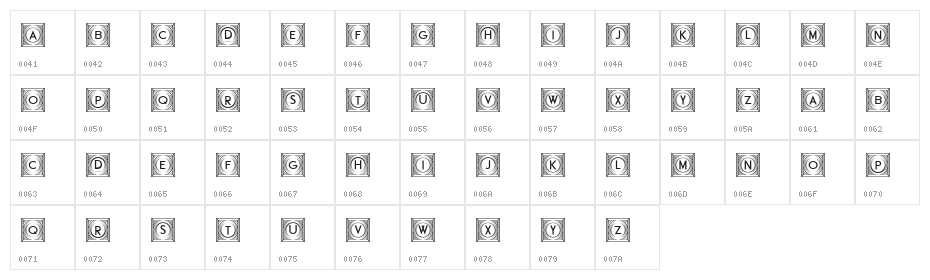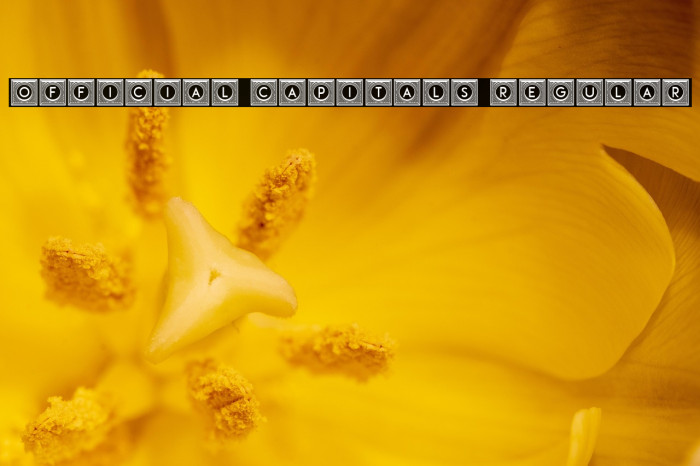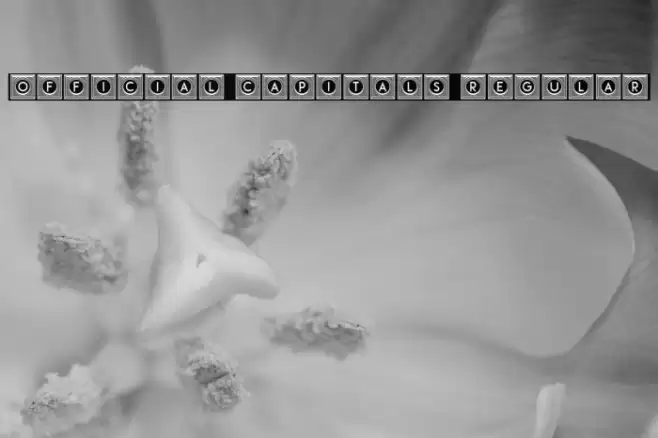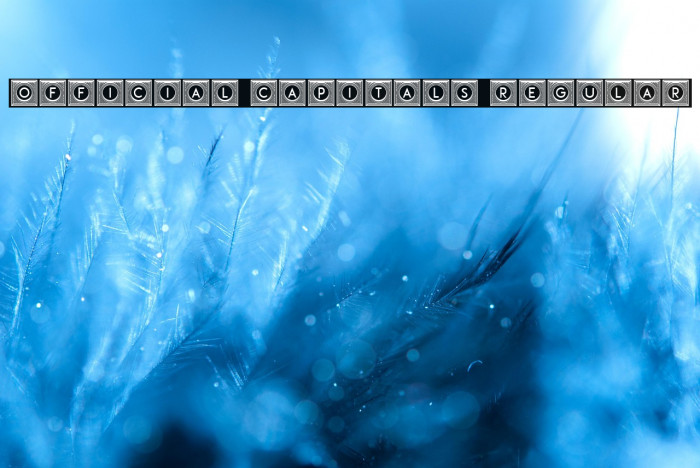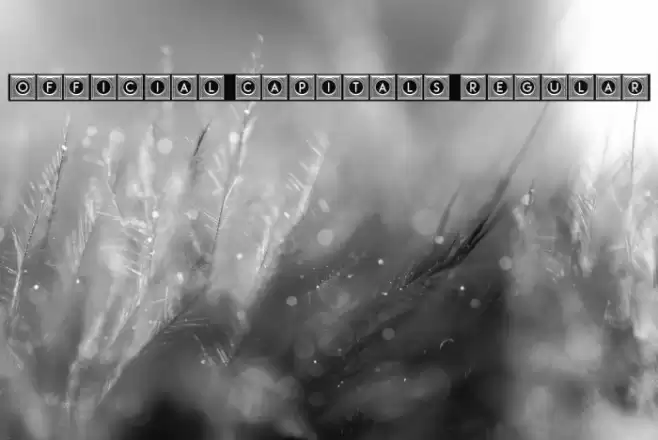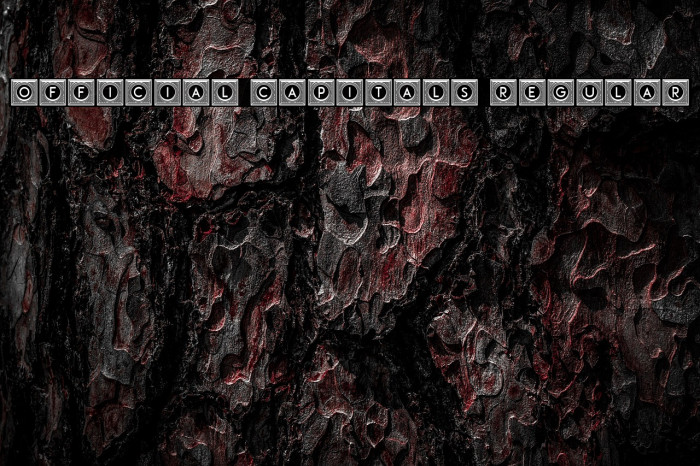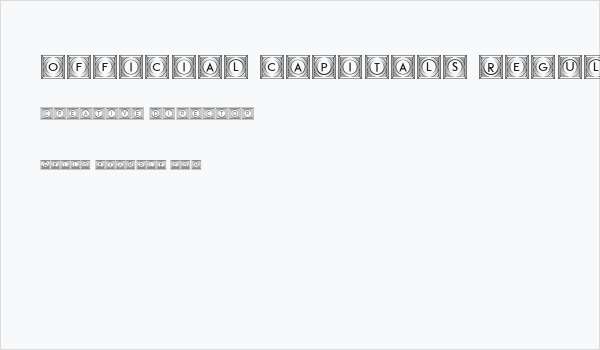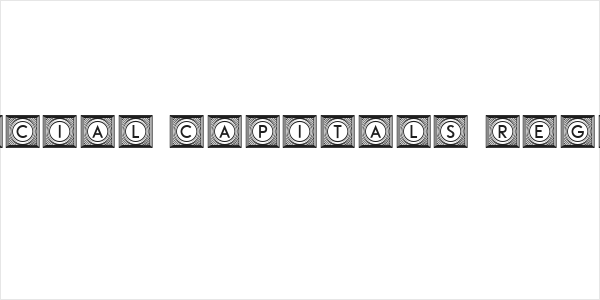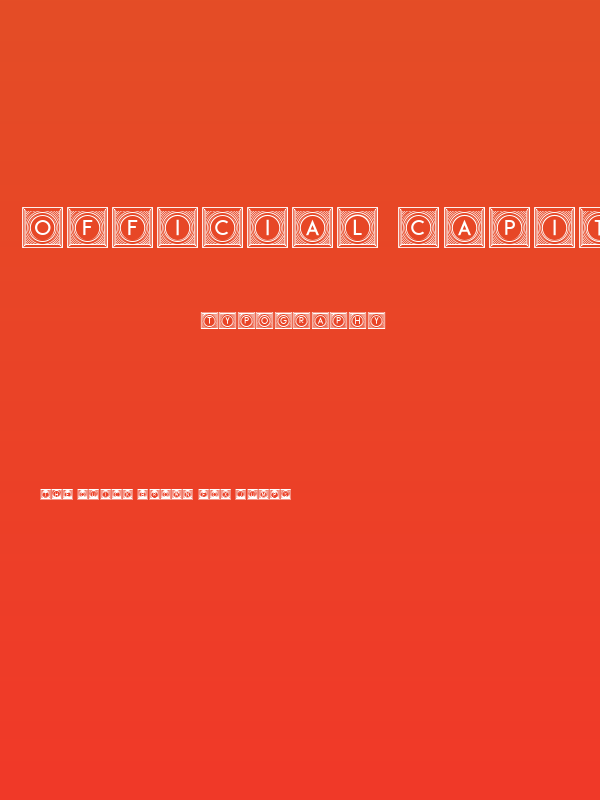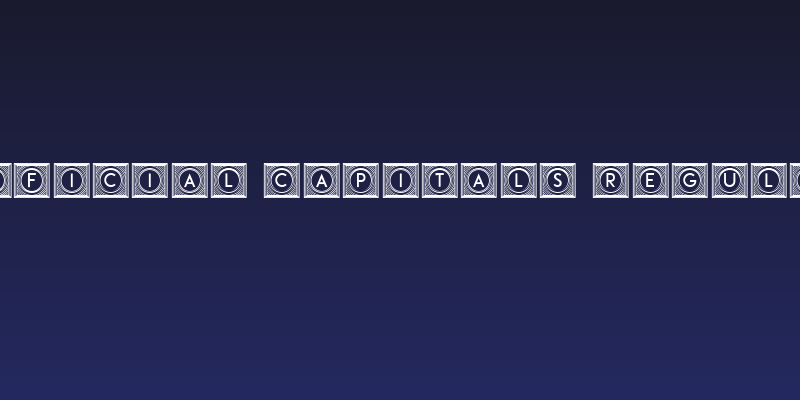
Official Capitals Regular Font
Official Capitals Regular Description
This font features uppercase letters enclosed within intricate, decorative square frames. Each letter is centered within a series of concentric squares, creating a bold and eye-catching effect. The letters themselves are sans-serif, with clean lines and uniform stroke widths, providing a modern and straightforward appearance. The contrast between the simplicity of the letters and the complexity of the surrounding frames makes this font ideal for decorative purposes. The geometric design of the frames adds a sense of depth and dimension, making each character stand out prominently.
| Proposed Projects | Ideal for use in logos, posters, invitations, or any project requiring a bold, decorative touch. |